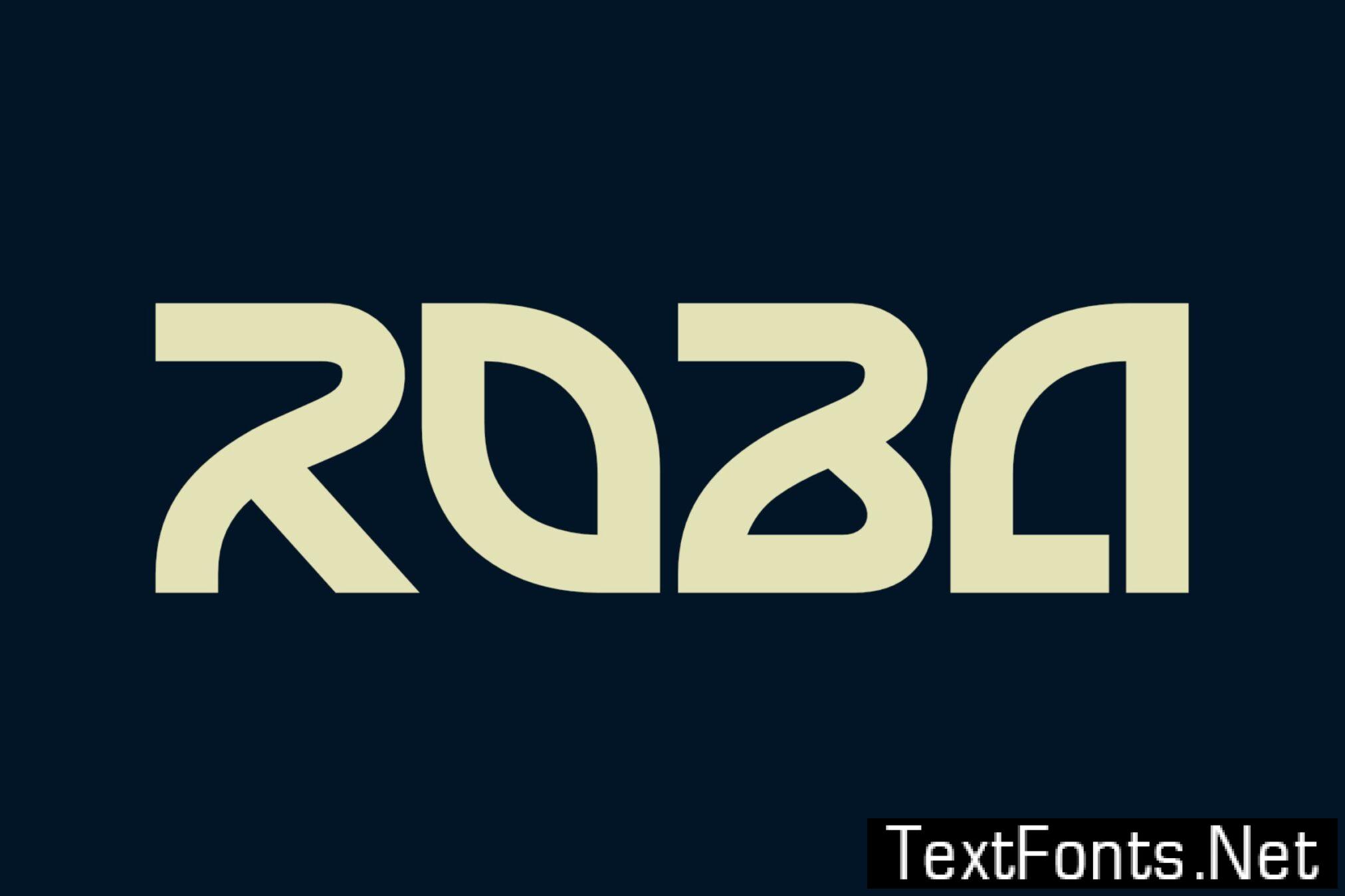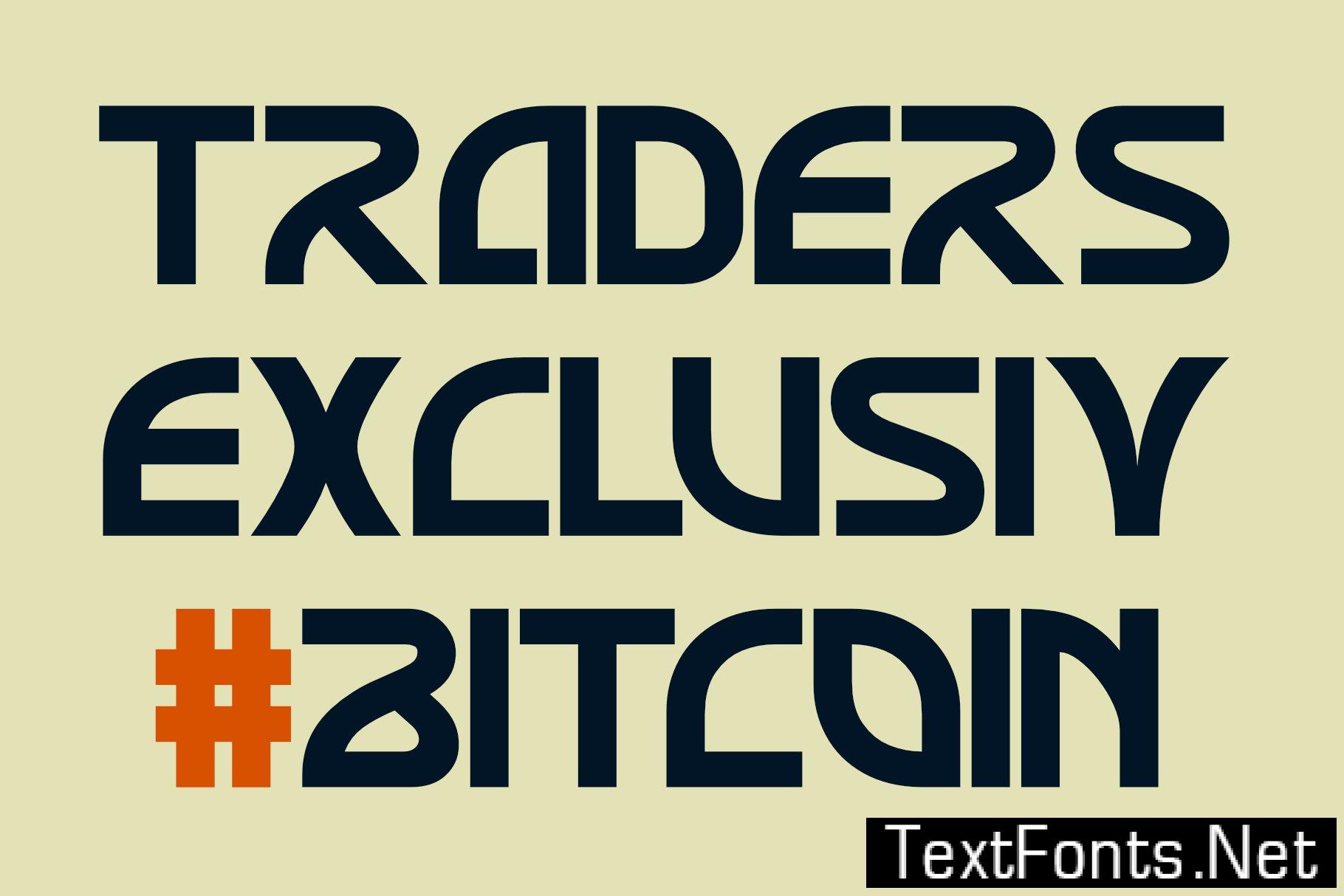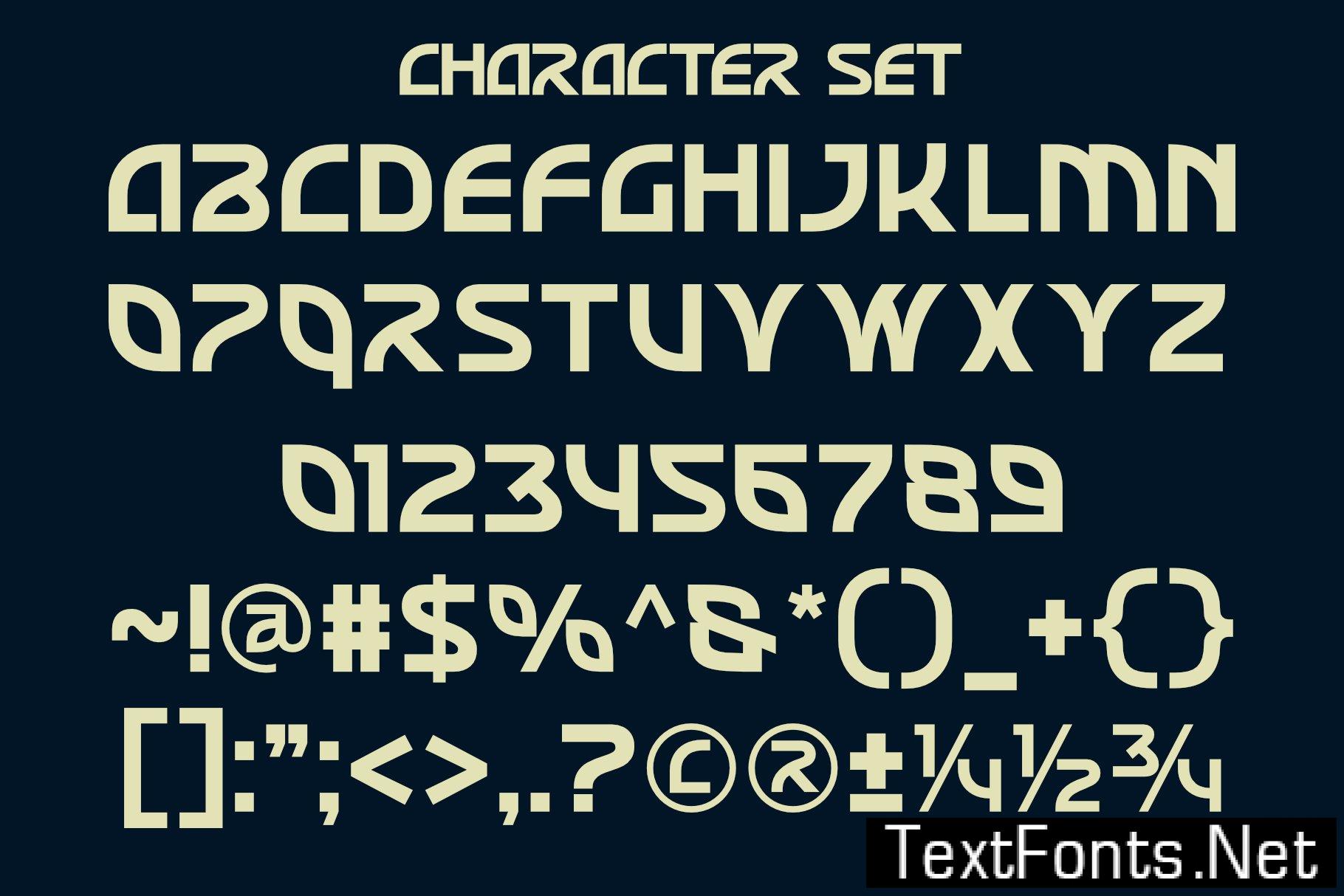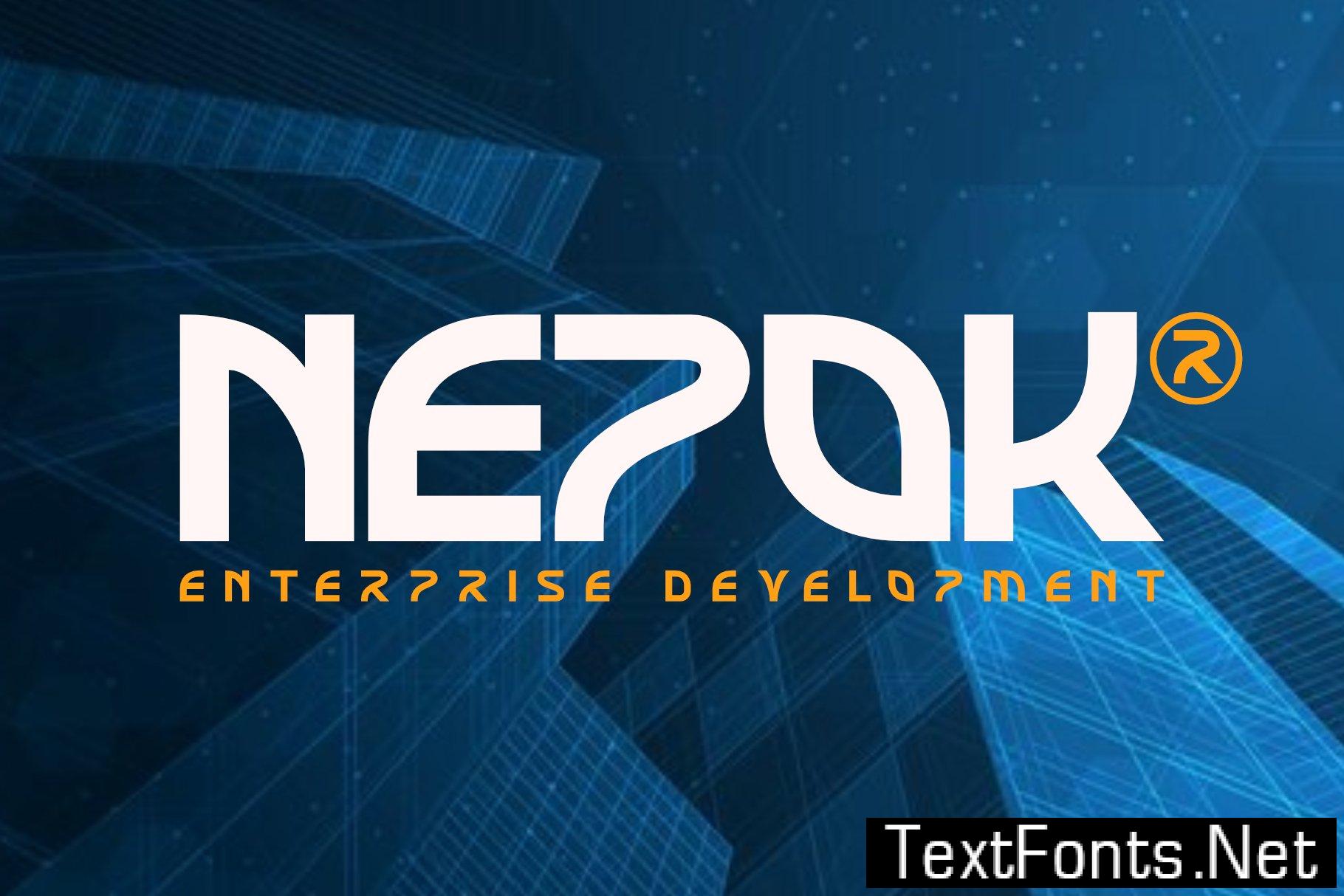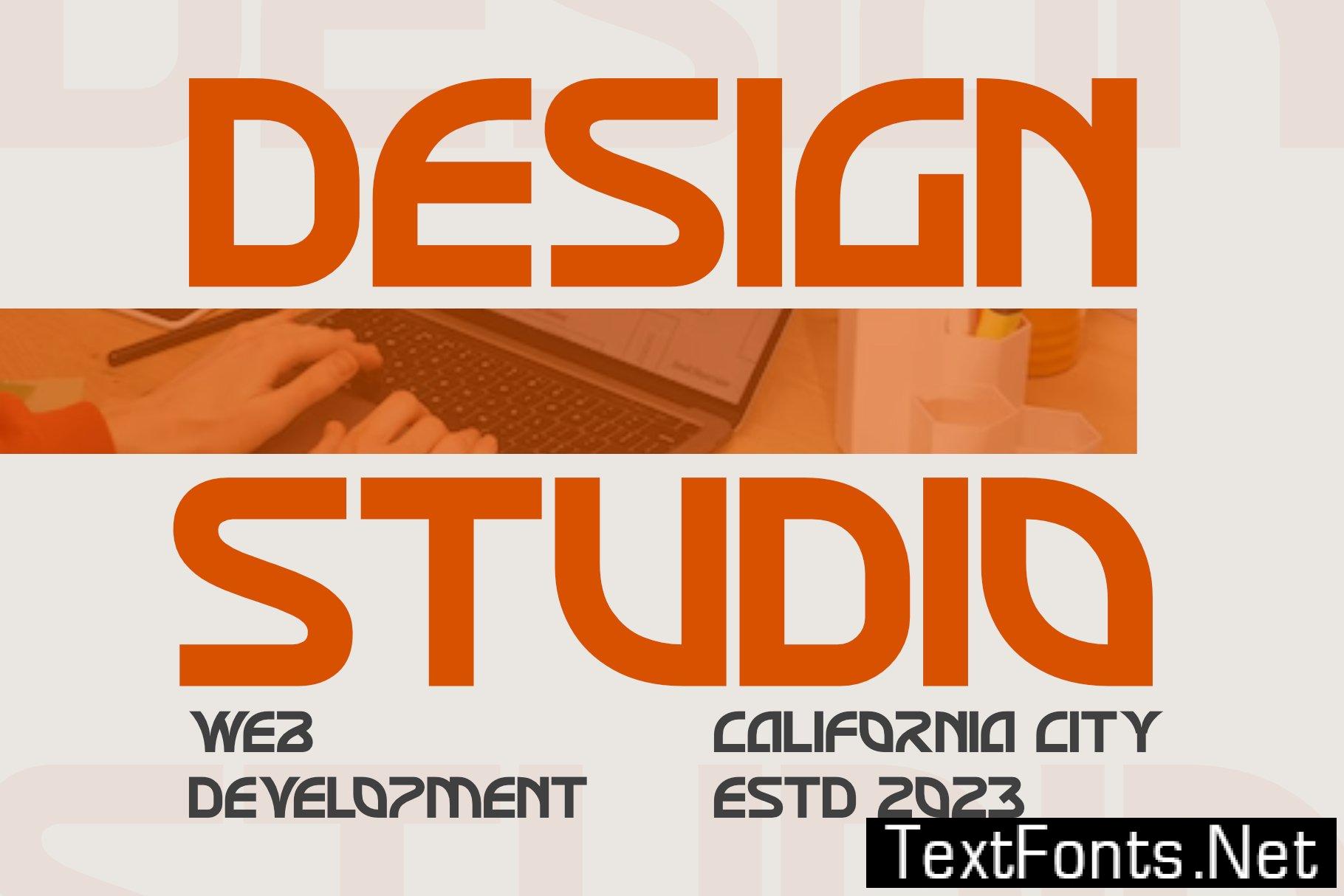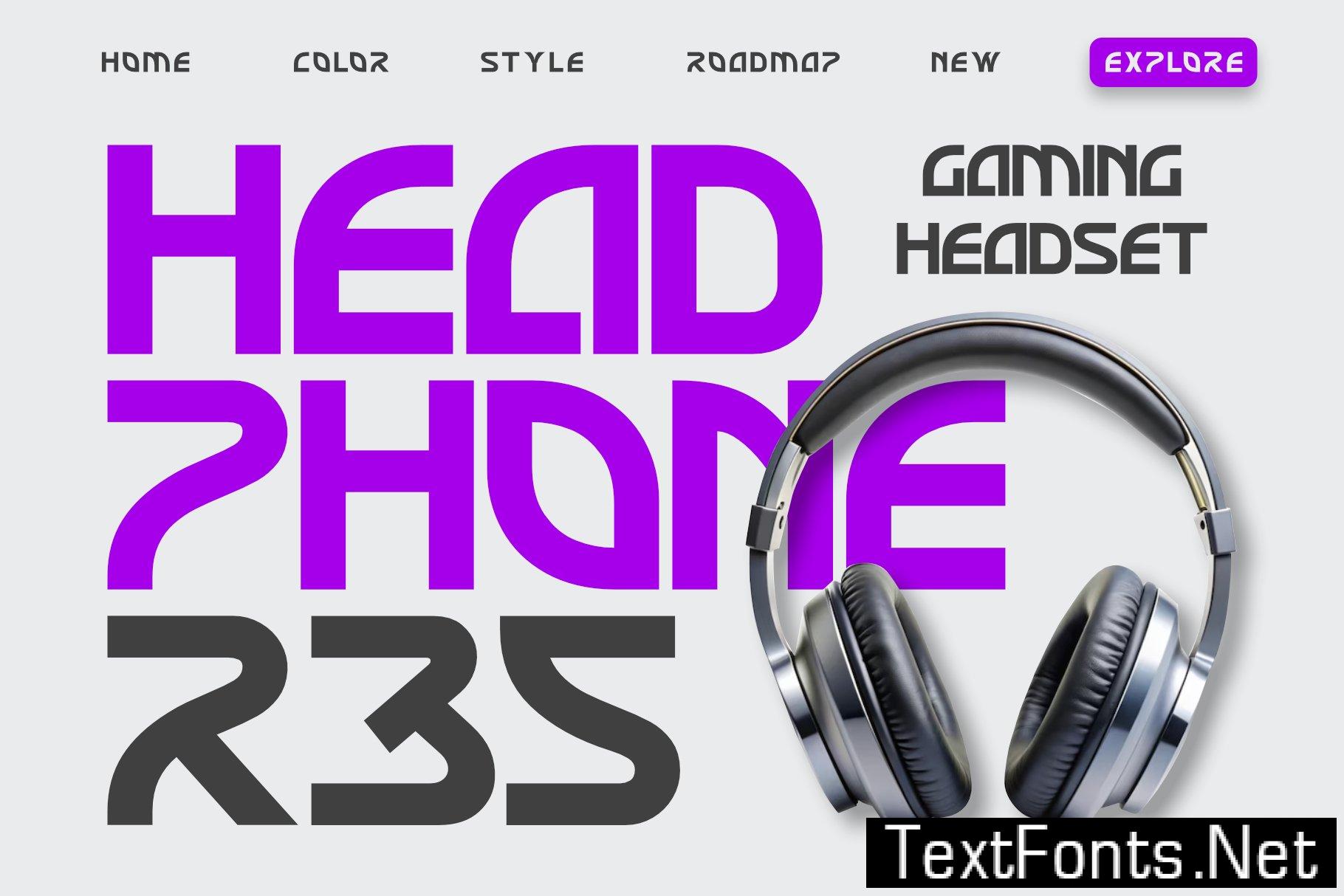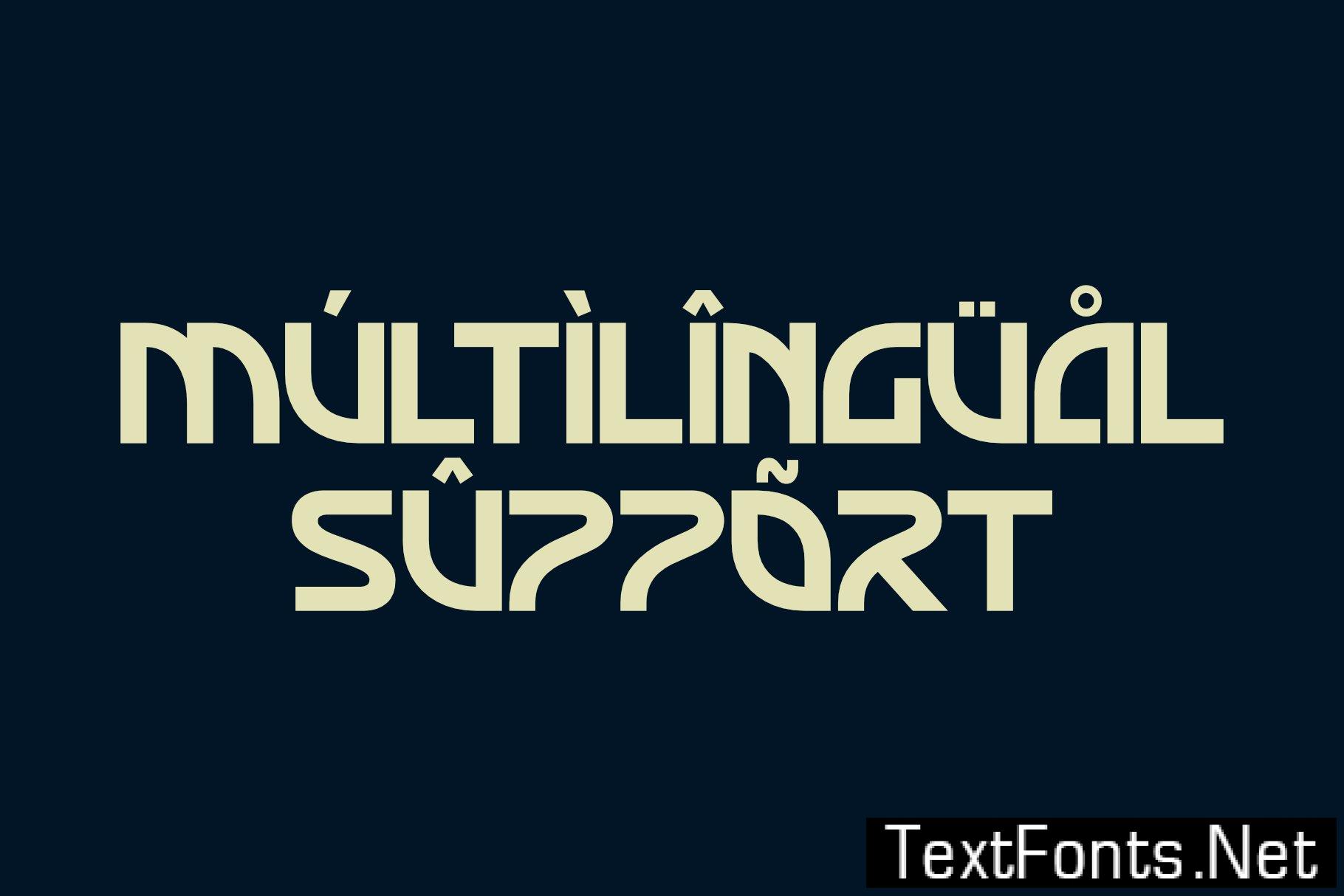
Introducing Roba Display, a cutting-edge typeface designed to elevate your brand identity. Crafted with meticulous precision, every detail of Roba is mathematically perfected to captivate your audience. Roba is versatile, making it ideal for corporate use and a wide range of projects such as branding, logos, titles, headlines, posters, digital ads, and more.
Roba includes a comprehensive character set featuring uppercase letters, numbers, and punctuation. It comes in multiple file formats, including TTF, OTF, WOFF1, and WOFF2, ensuring compatibility across various platforms and devices.